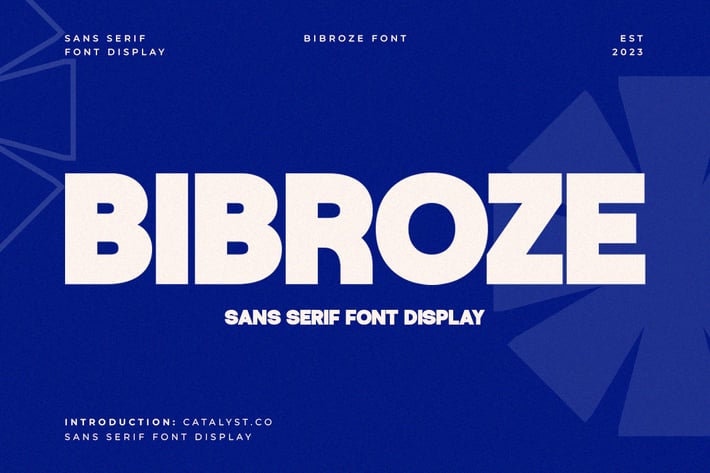
Bibroze Sans Serif Font
Bibroze is a bold geometric sans serif display font crafted to deliver strong visual impact and clean contemporary character. Its heavy shapes, rounded details, and structured proportions make it stand out in titles, branding, posters, and expressive visual layouts. Designed for clarity and confidence, Bibroze instantly brings a modern and energetic feel to any project.
Perfect for bold headlines, logo design, sports graphics, editorial layouts, social media visuals, and promotional materials. With complete uppercase, lowercase, numbers, and symbols, Bibroze offers a versatile and professional type solution for designers seeking a premium modern sans serif with a powerful presence.
Suitable for bold branding, sport graphics, logo design, editorial titles, promotional posters, product packaging, social media layouts, advertising visuals, and modern creative projects that require a strong and geometric sans serif display typeface
Ligatures & Alternate
Numeral & Punctuations